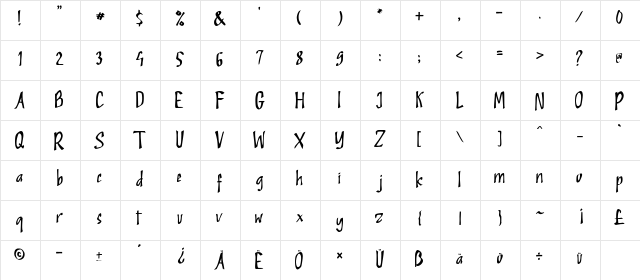
Rockleys Regular
| Designer | Bayu Tri Ratman |
Design Context for Rockleys Typeface
Rockleys is a composed and adaptable typeface that performs quietly and consistently across a wide range of design contexts.